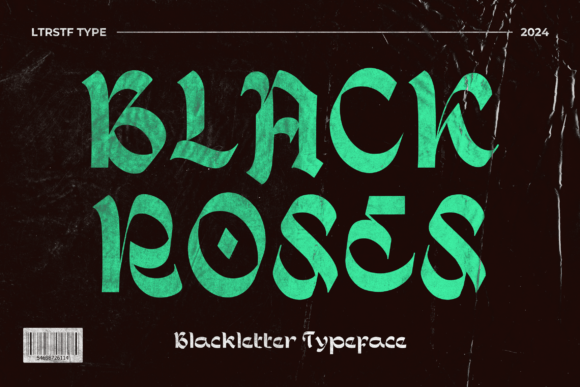
Introducing BLACKROSES Font: The Perfect Blend of Elegance and Edge
In the world of typography, fonts play a crucial role in conveying messages, expressing emotions, and creating brand identities. With the vast array of fonts available, it can be challenging to find the perfect one that combines elegance, sophistication, and a touch of edge. However, look no further than BLACKROSES Font, a blackletter-inspired digital gem that is sure to elevate your designs to the next level.
What is BLACKROSES Font?
BLACKROSES Font is a unique and striking typeface that seamlessly blends beauty with sharp lines, creating a dramatic effect that is sure to capture attention. Inspired by traditional blackletter fonts, BLACKROSES Font boasts a distinctive and elegant aesthetic, perfect for logos, headlines, and branding projects.
Key Features of BLACKROSES Font
- Elegant and Edgy Design: BLACKROSES Font combines the sophistication of traditional blackletter fonts with a modern, edgy twist, making it perfect for designs that require a touch of drama and flair.
- Multilingual Support: This versatile font supports multilingual characters, ensuring that your message resonates globally, regardless of the language or region.
- High Versatility: BLACKROSES Font is suitable for a wide range of design applications, from logos and headlines to branding and advertising materials.
- Easy to Read: Despite its ornate design, BLACKROSES Font remains highly legible, making it perfect for use in various contexts, from digital media to print materials.
Design Applications for BLACKROSES Font
BLACKROSES Font is an incredibly versatile typeface that can be used in a variety of design applications, including:
- Logo Design: Create a lasting impression with a custom logo that incorporates BLACKROSES Font, perfect for businesses, products, or services that require a touch of elegance and sophistication.
- Headlines and Titles: Add a touch of drama and flair to your headlines and titles with BLACKROSES Font, ideal for editorials, magazines, and online publications.
- Branding and Advertising: Establish a strong brand identity with BLACKROSES Font, suitable for use in advertising materials, packaging, and marketing campaigns.
Benefits of Using BLACKROSES Font
By incorporating BLACKROSES Font into your designs, you can enjoy a range of benefits, including:
- Unique and Memorable Designs: BLACKROSES Font helps you create designs that stand out from the crowd, making a lasting impression on your audience.
- Enhanced Brand Identity: Establish a strong and recognizable brand identity with BLACKROSES Font, perfect for businesses and organizations looking to make a statement.
- Flexibility and Versatility: With its wide range of design applications and multilingual support, BLACKROSES Font offers unparalleled flexibility and versatility.
Tips and Tricks for Using BLACKROSES Font
To get the most out of BLACKROSES Font, consider the following tips and tricks:
- Experiment with Font Sizes: BLACKROSES Font looks stunning in large font sizes, but it can also be effective in smaller sizes, depending on the design context.
- Pair with Complementary Fonts: Combine BLACKROSES Font with complementary fonts to create a harmonious and visually appealing design.
- Play with Colors and Textures: Add an extra layer of depth and interest to your designs by experimenting with different colors and textures.
In conclusion, BLACKROSES Font is a unique and versatile typeface that offers the perfect blend of elegance and edge. With its blackletter-inspired design, multilingual support, and high versatility, this font is perfect for a wide range of design applications, from logos and headlines to branding and advertising materials. Whether you’re a designer, entrepreneur, or simply someone looking to elevate your brand, BLACKROSES Font is an excellent choice.